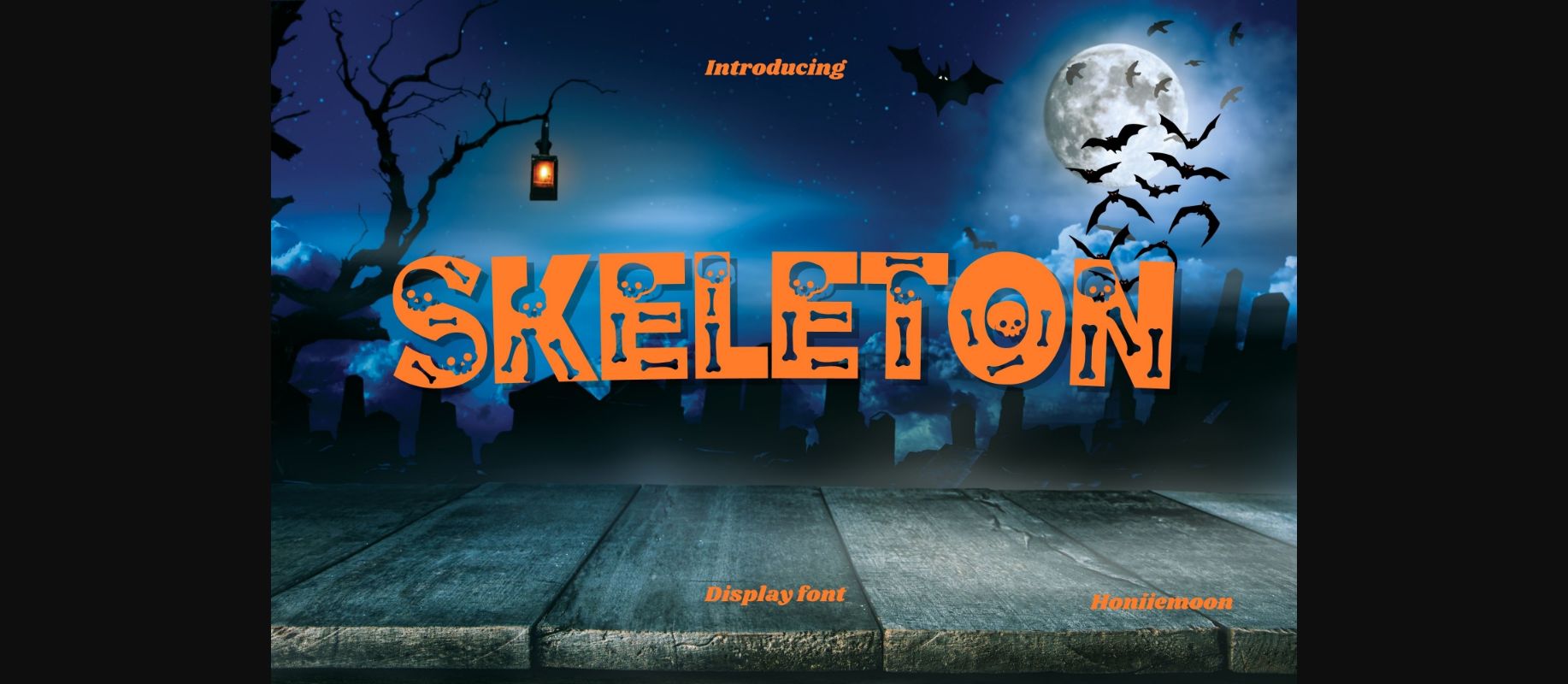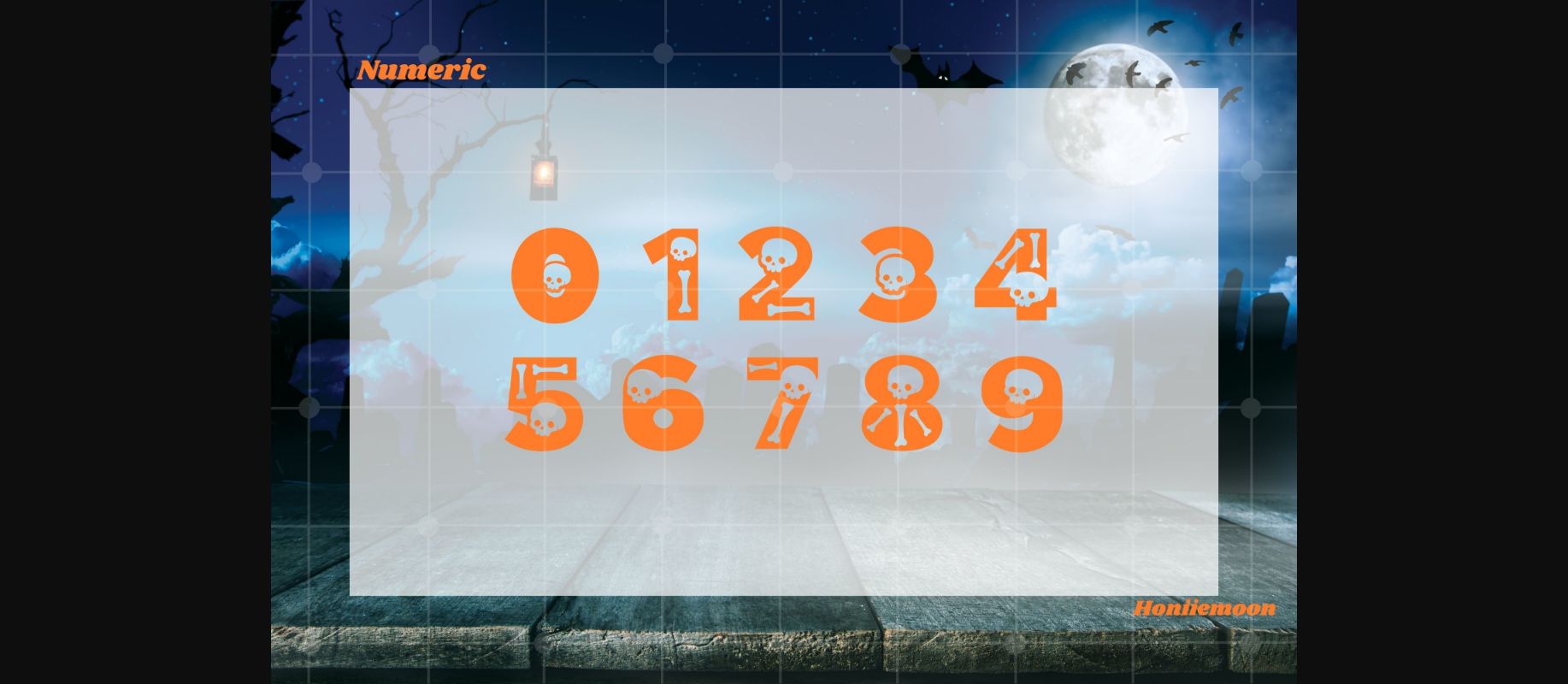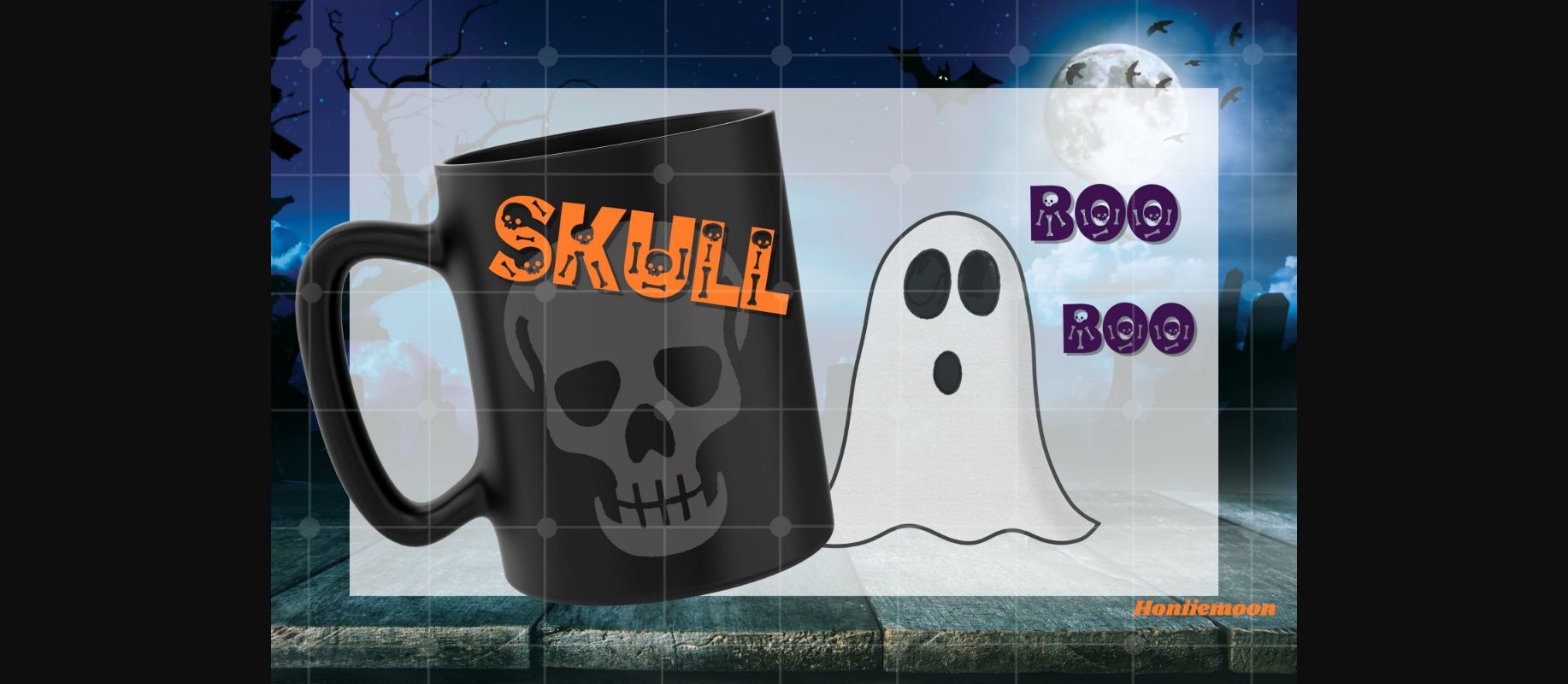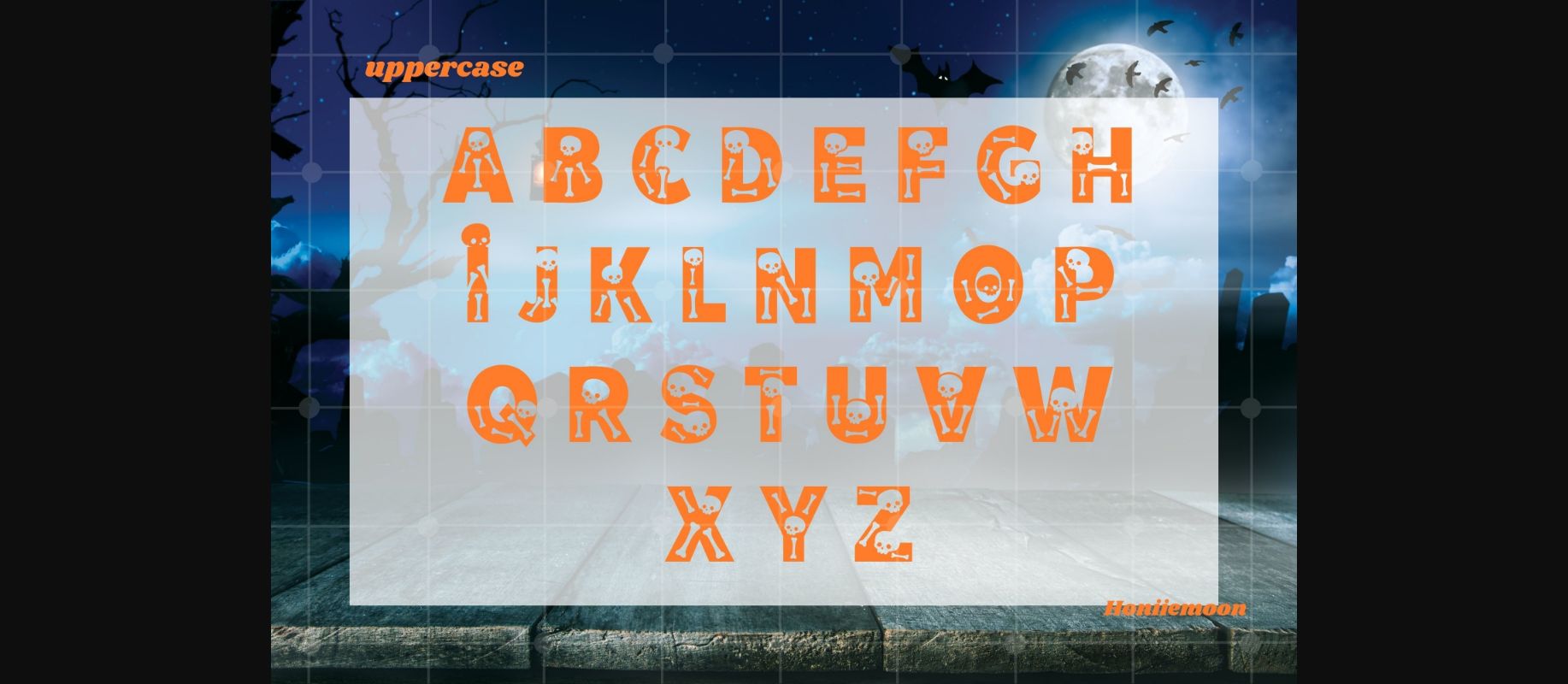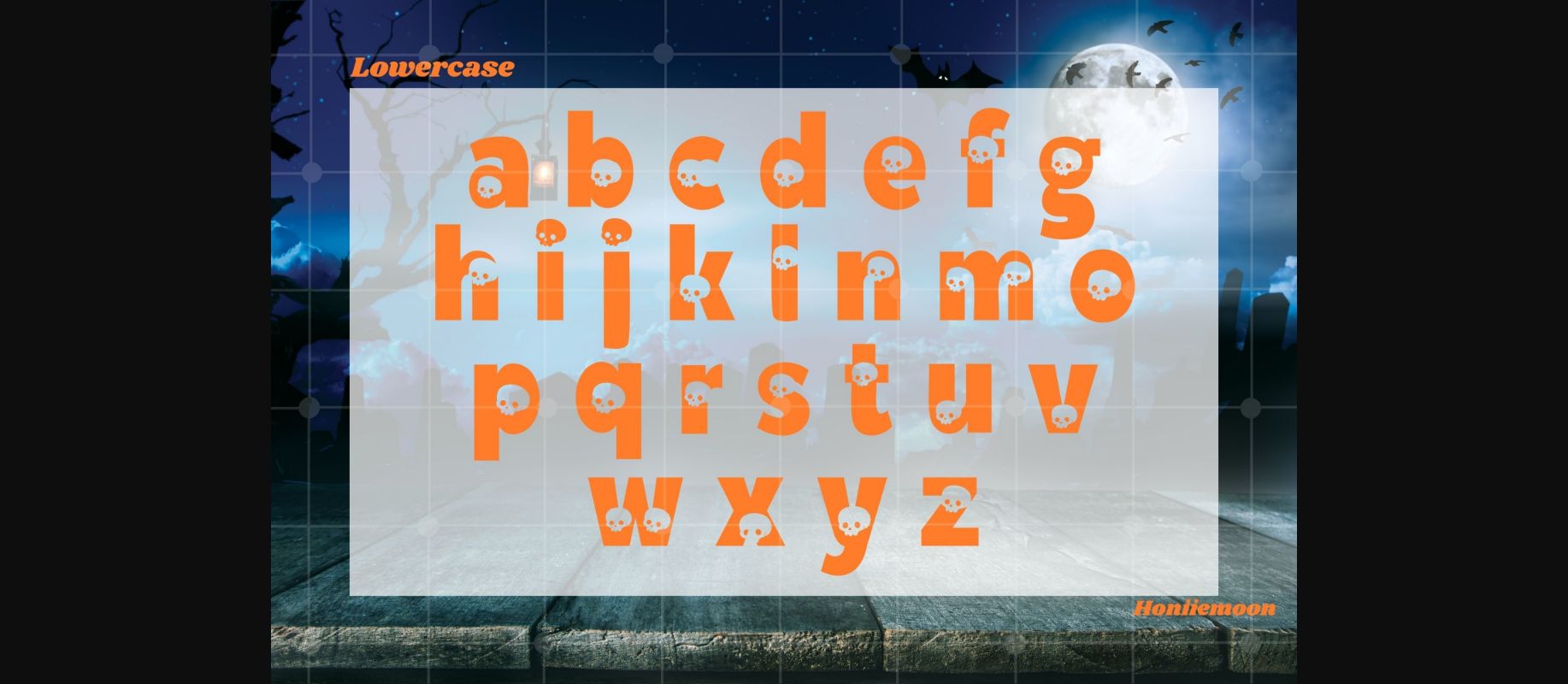
Skeleton Font
About Skeleton Font
Skeleton is a cool and fun decorative font. It looks both cute and spooky and it will enhance each of your Halloween designs. The only limit is your imagination. Add this creative typeface to each of your creative ideas, and notice how it makes them come alive!